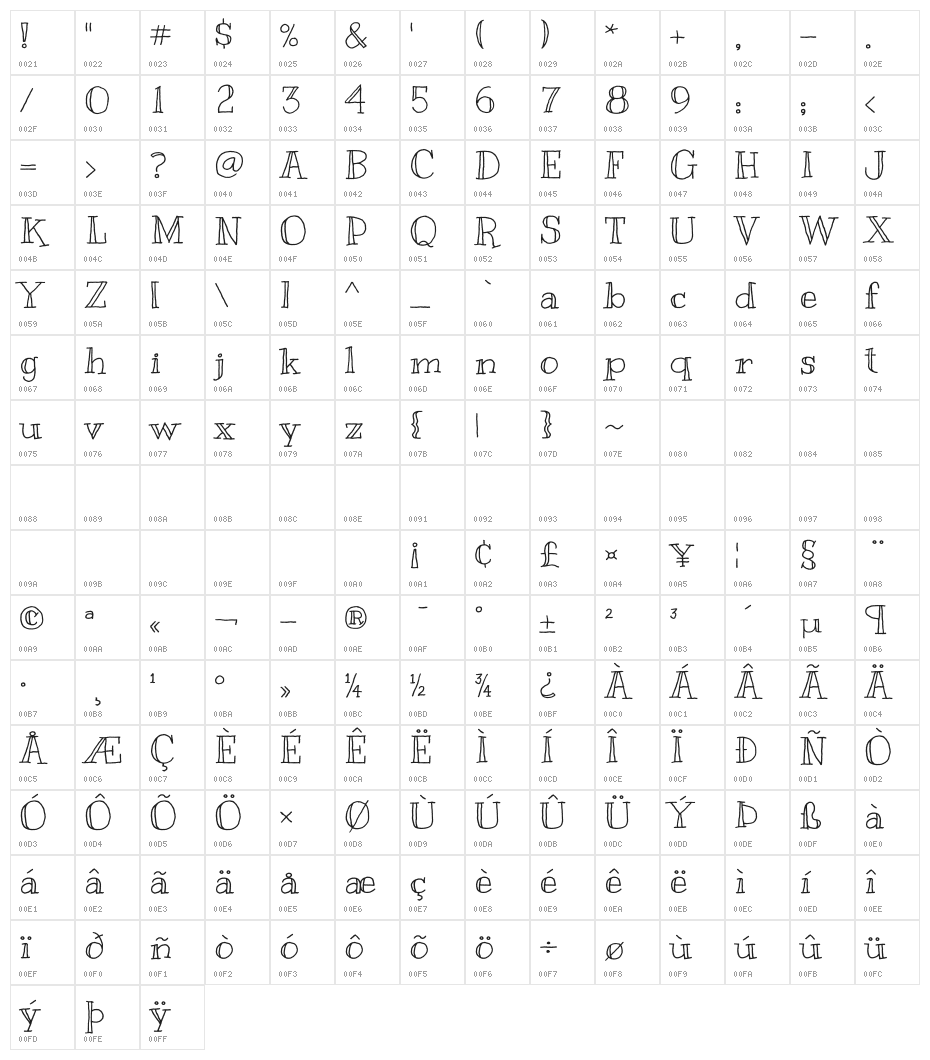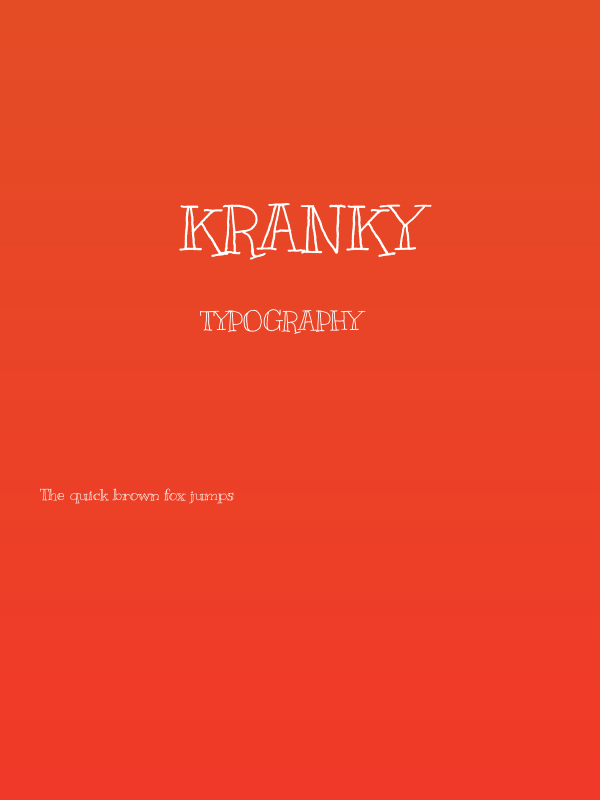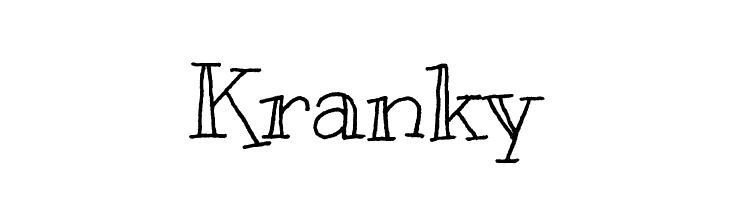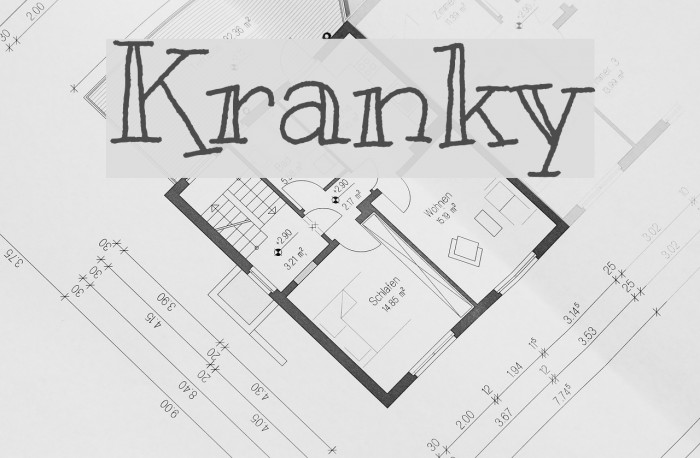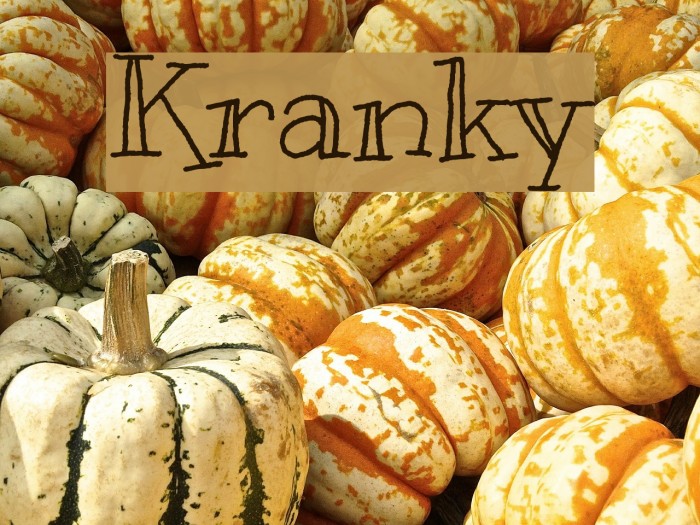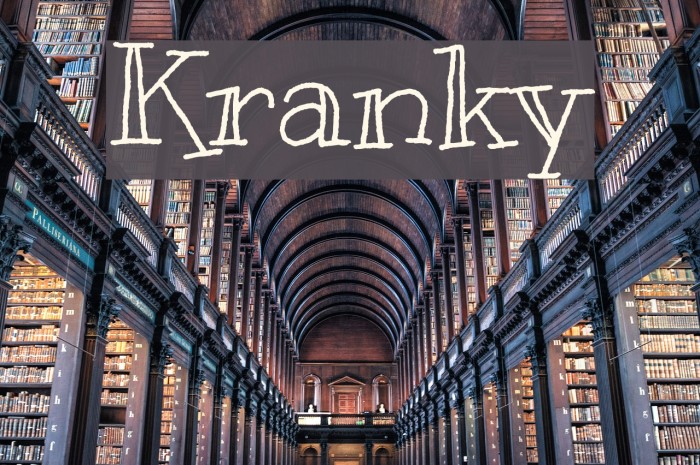
Kranky Font
Kranky Description
This playful and whimsical font features a hand-drawn, sketch-like appearance that adds a touch of fun and creativity to any design. The characters are irregular and slightly tilted, giving them a lively and informal feel. The strokes are uneven, with a medium contrast that enhances the casual, artistic style. This font is perfect for projects that require a personal and approachable touch, such as children's books, greeting cards, or playful branding. Its unique style stands out, making it ideal for headlines and short text where personality is key.
| Proposed Projects | Children's books, greeting cards, playful branding, headlines. |